Extraset
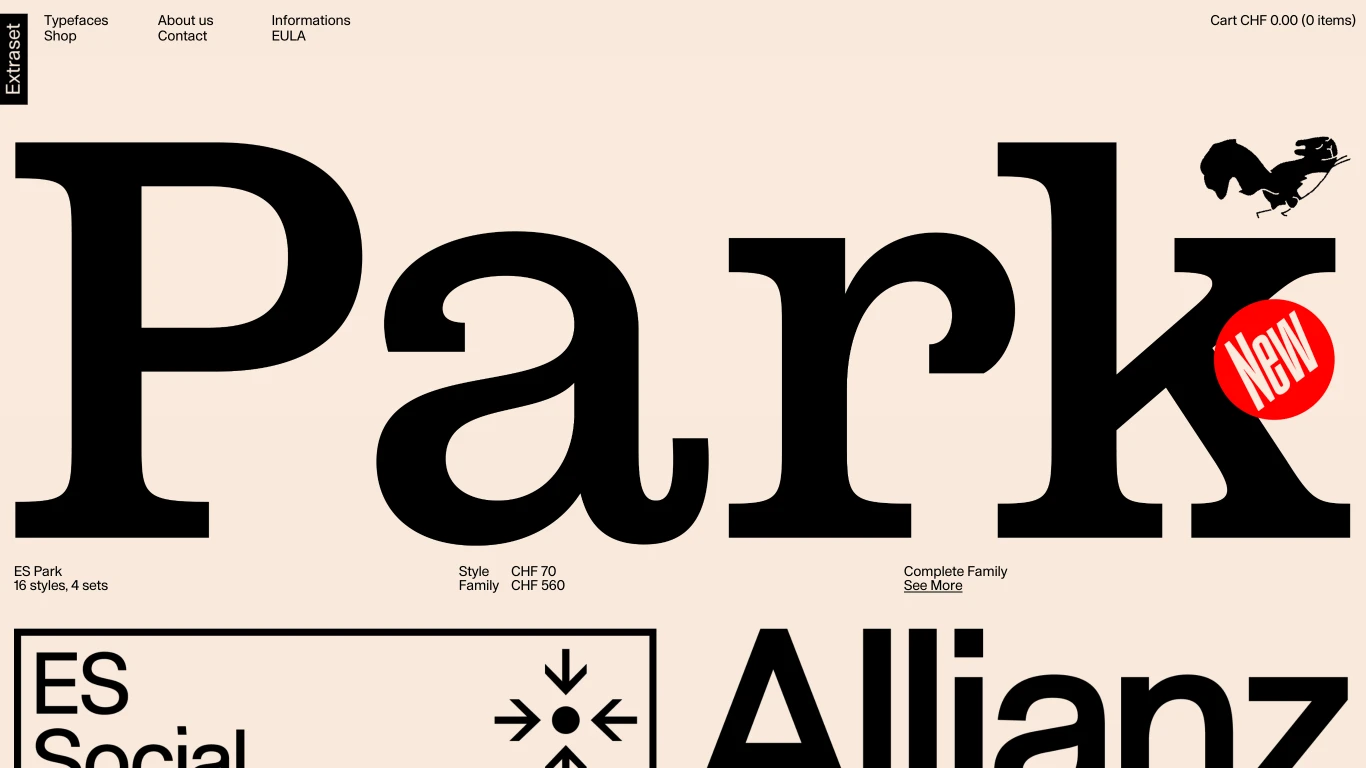
Switzerland
Extraset is an independent Swiss type foundry based in Geneva, founded by Alex Dujet (Futur Neue), Xavier Erni (Neo Neo), Roger Gaillard (Cécile + Roger), and David Mamie (TM Todeschini + Mamie).Their fonts feature extensive alternative character sets, allowing designers to customize typefaces by mixing glyphs from various stylistic sets—because at Extraset, there’s always an extra set for you.